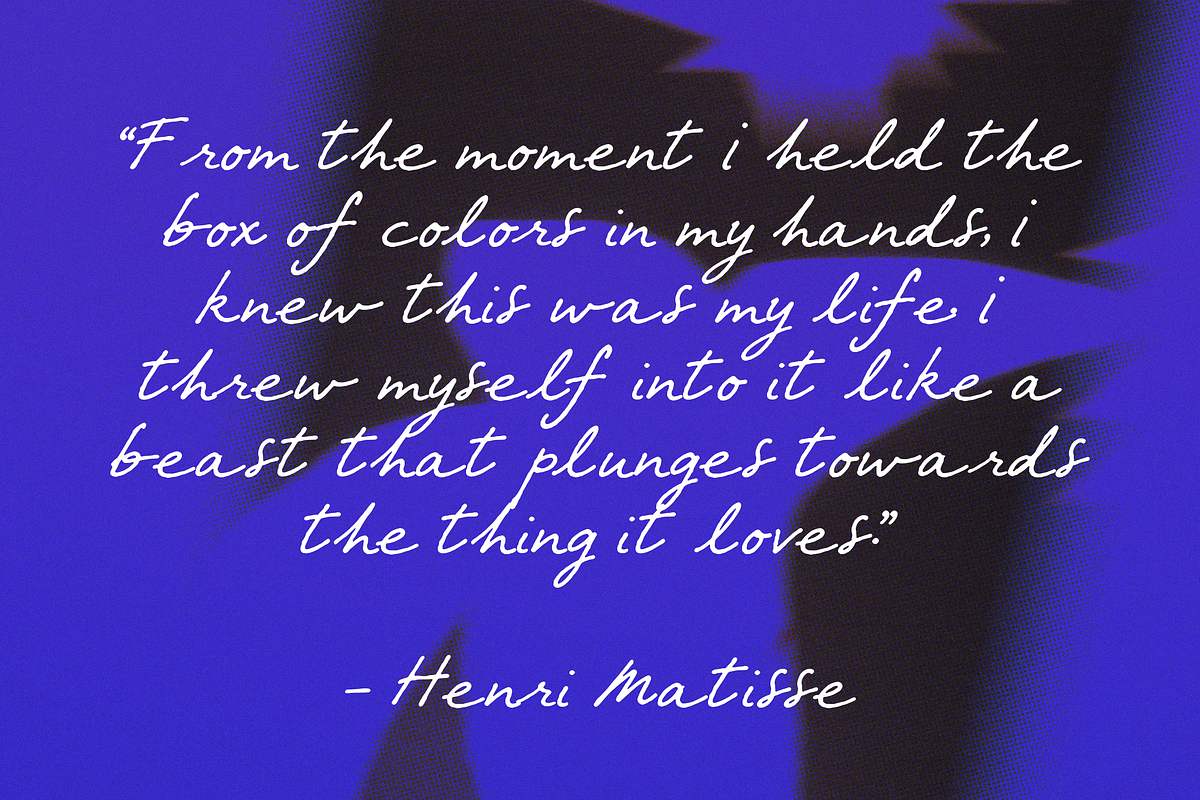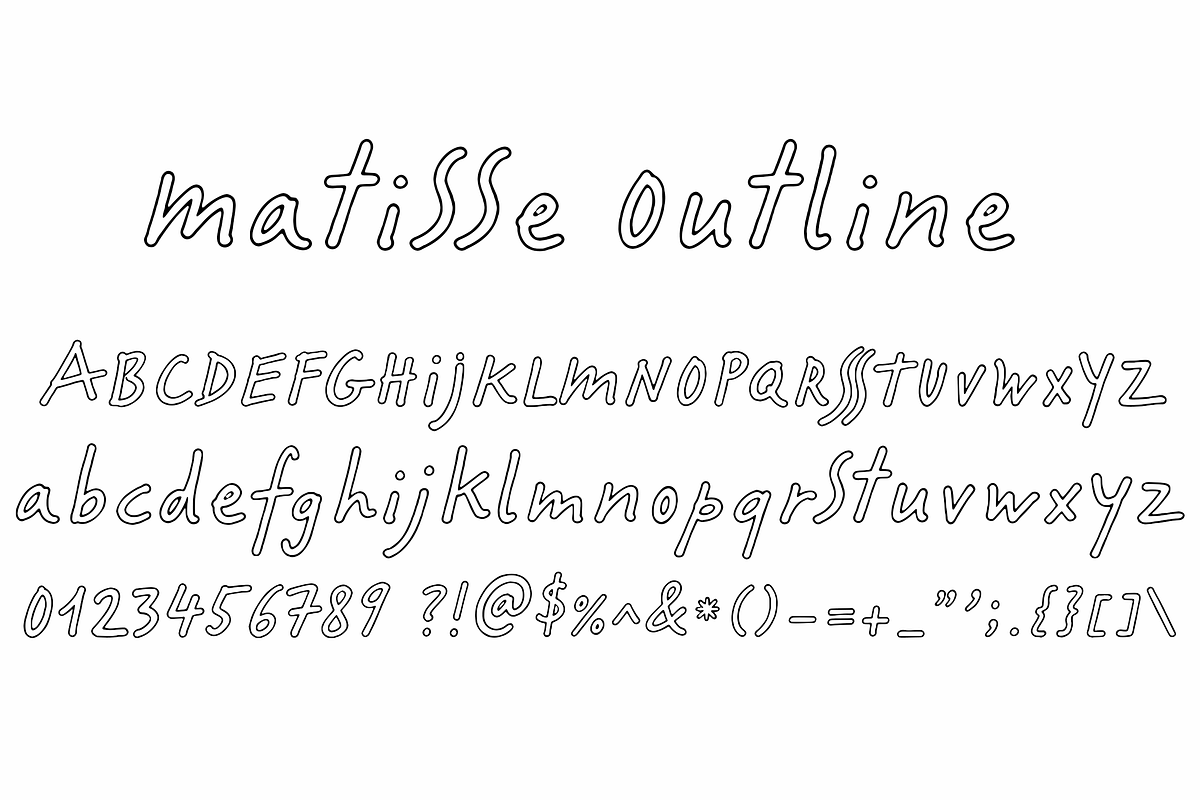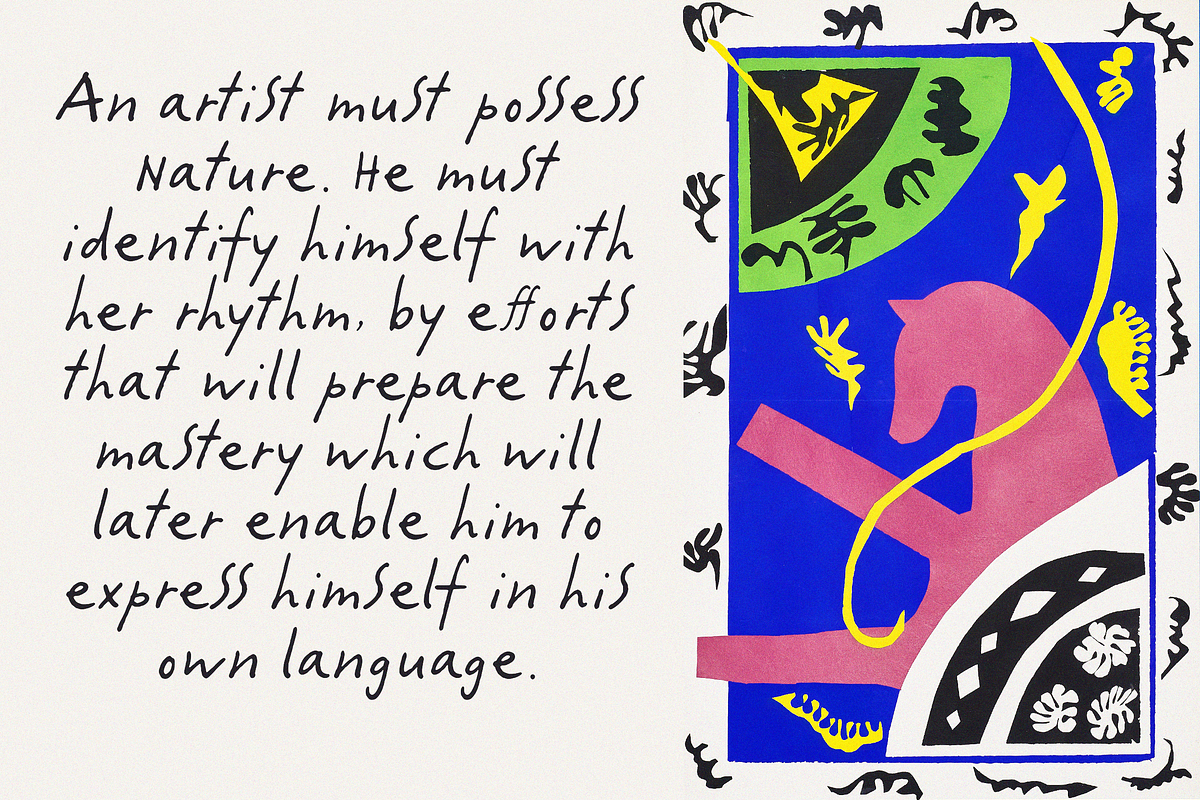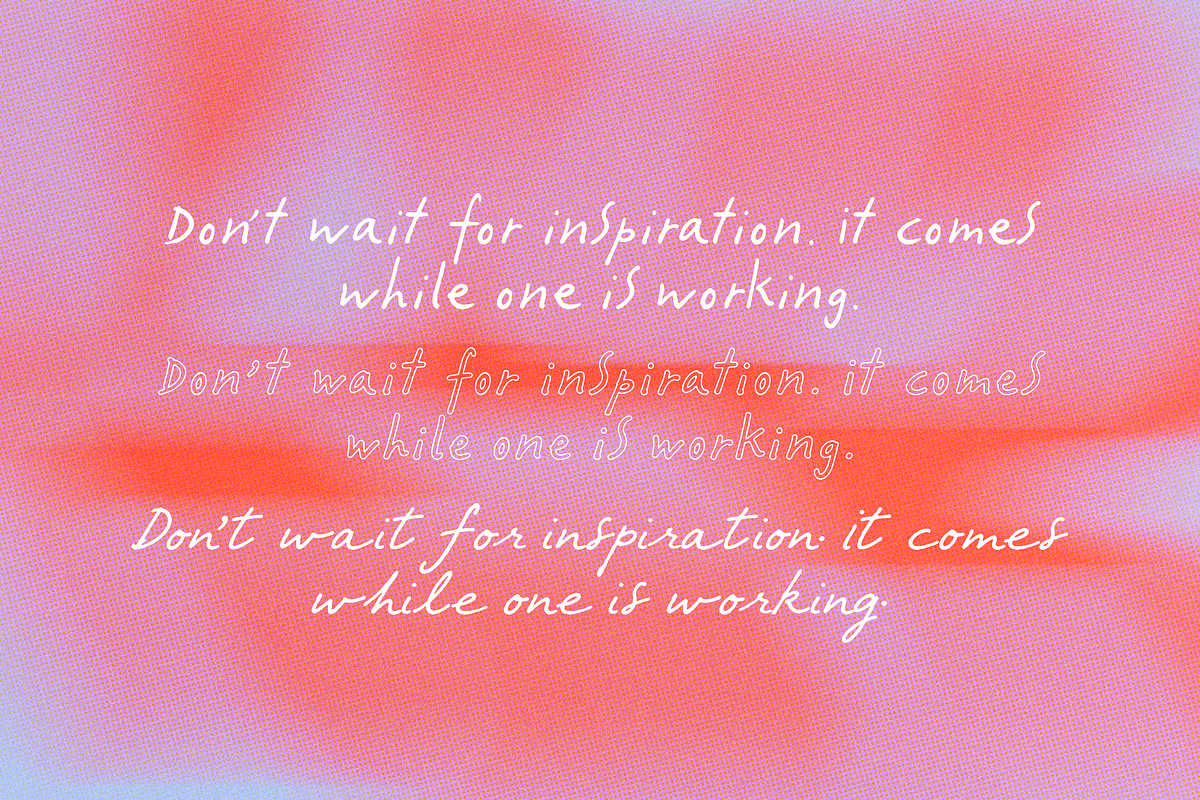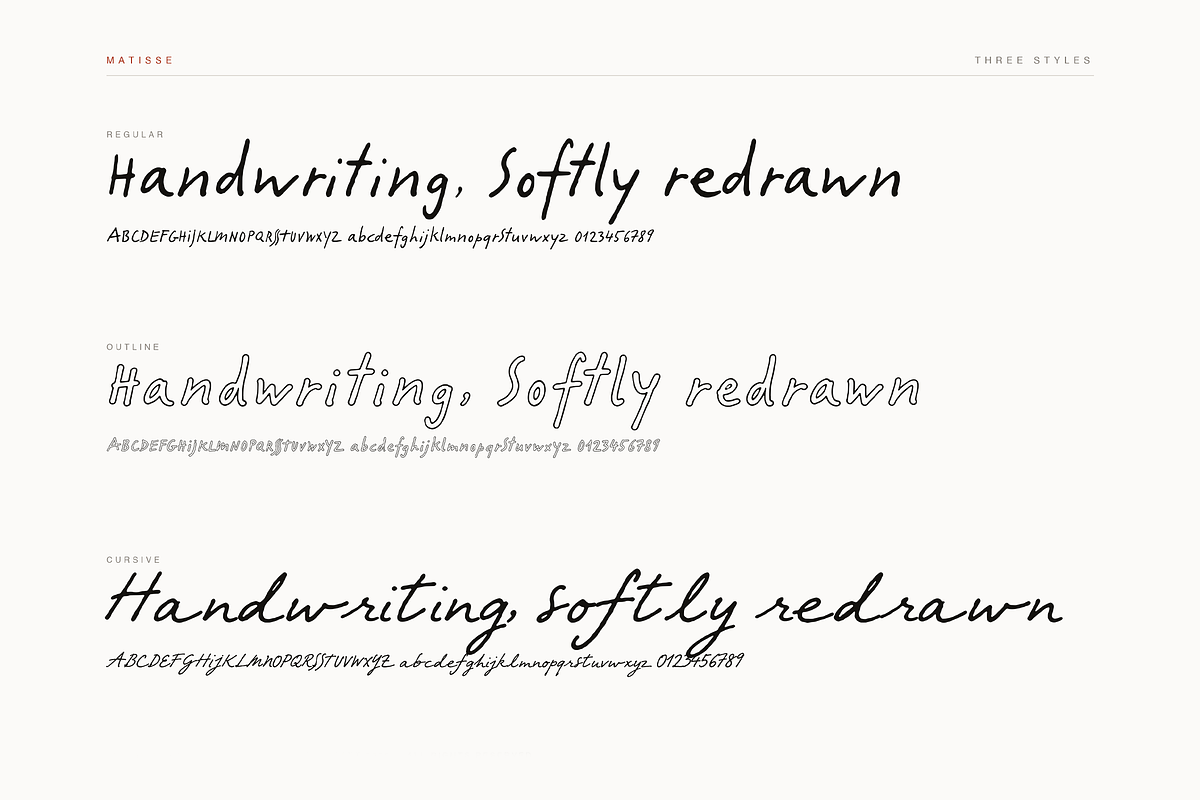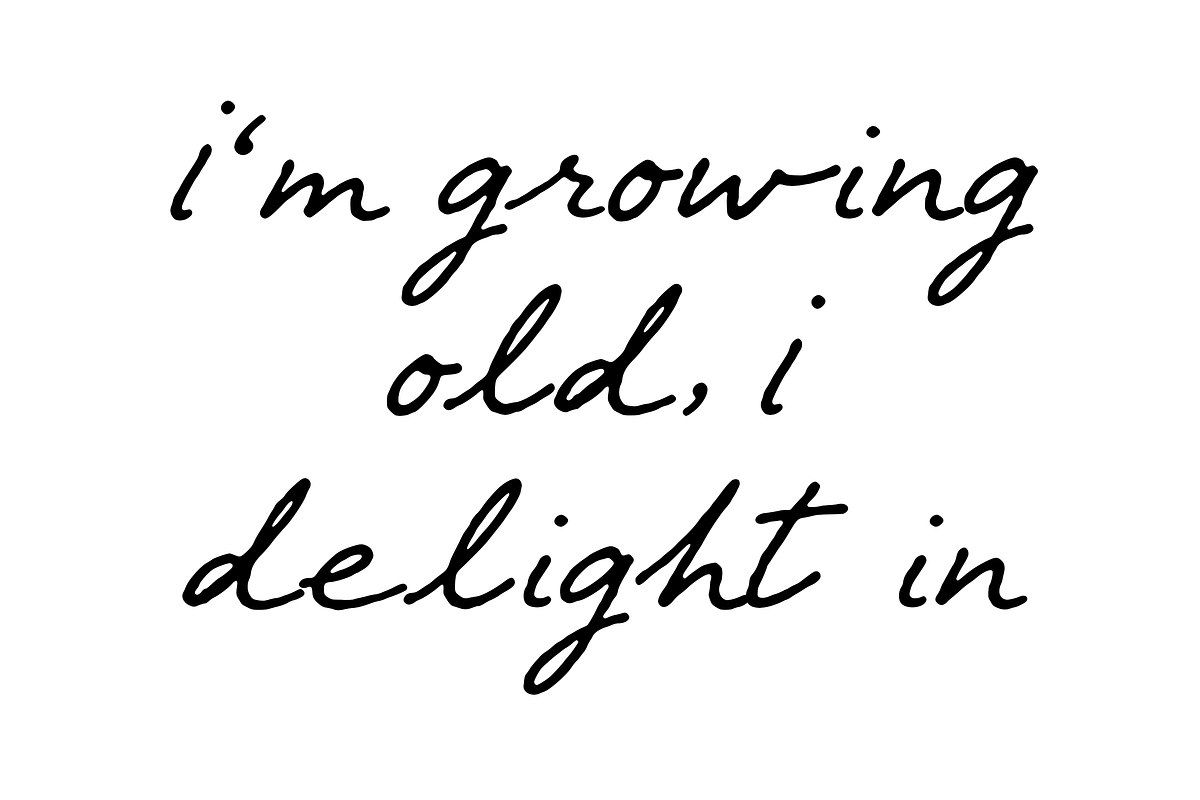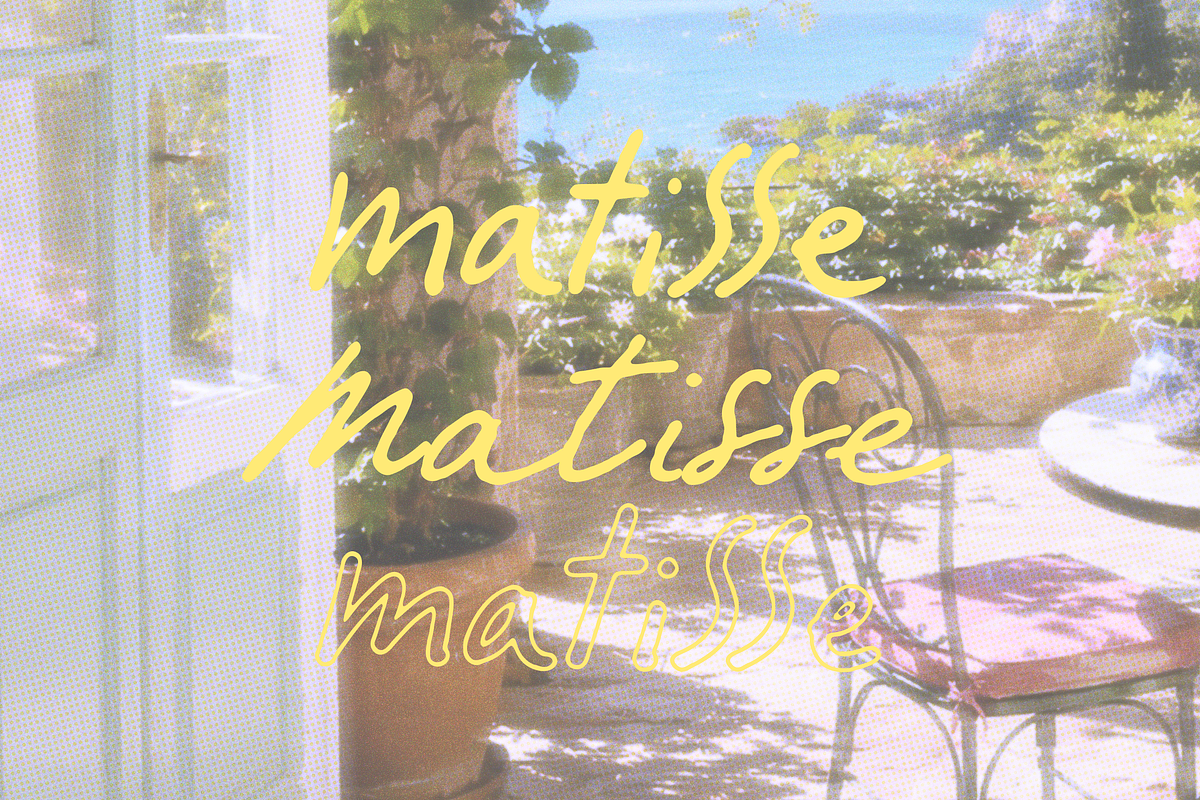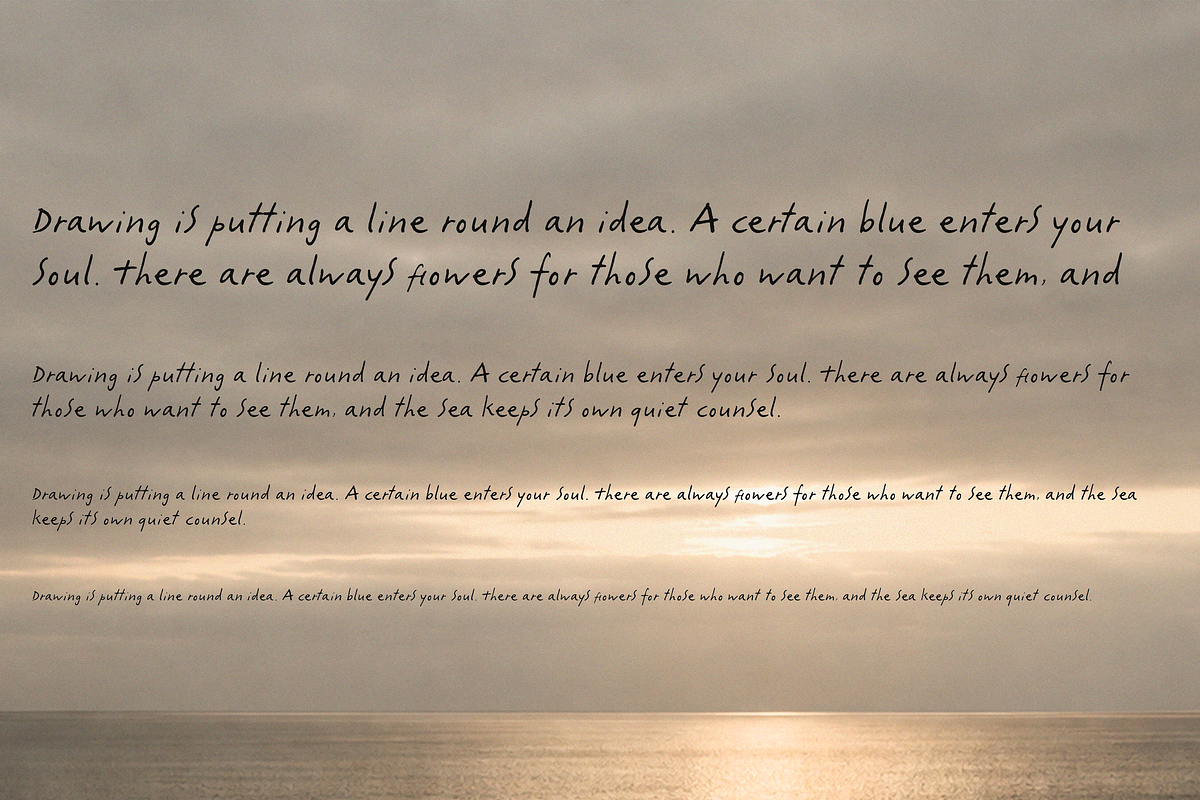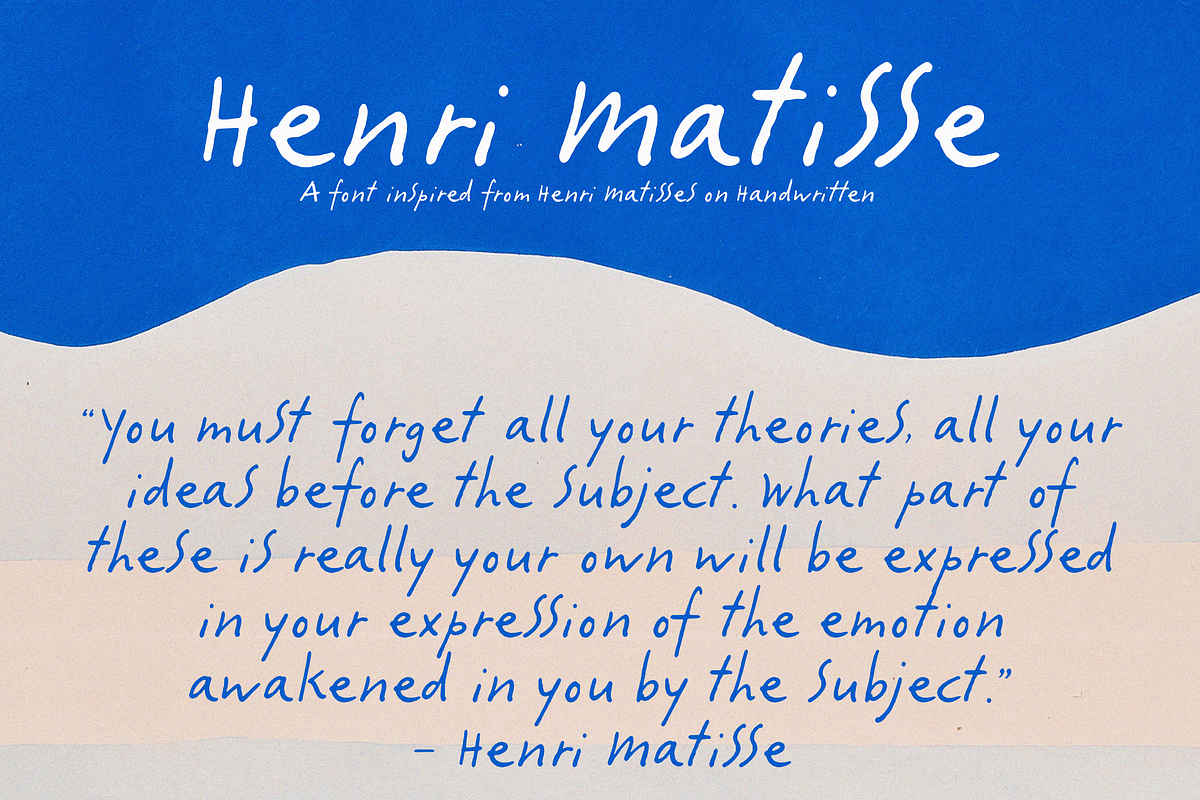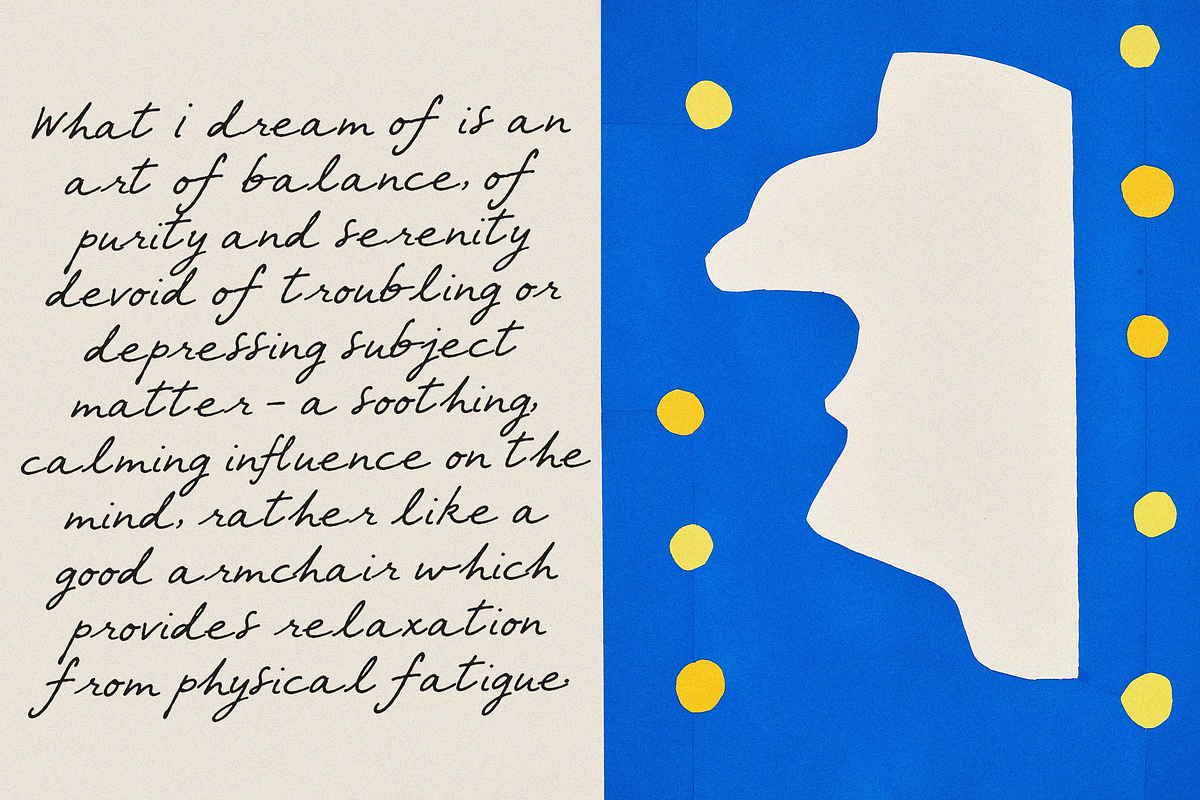
Matisse - Expressive Font
Matisse is an expressive handwritten font inspired by the loose, spontaneous character of an artist’s handwriting. Its imperfect lines, playful proportions, and naturally uneven rhythm give every word the feeling of something written quickly by hand rather than carefully typeset.
The font has a distinctly modernist, artistic personality, minimal, slightly quirky, and full of movement. Some letters are tall and narrow, others lean or curve unexpectedly, creating a beautifully unpolished quality that works especially well for designs that need to feel personal and creative.
The family explores the handwriting in different ways, including a bold handwritten style, a delicate outline version, and a flowing cursive variation, making it easy to create contrast while keeping the same visual language.
Perfect for art books, editorial layouts, posters, exhibition graphics, branding, packaging, invitations, stationery, fashion projects, album artwork, quotes, social media, and handmade-inspired designs.
The character set includes uppercase and lowercase letters, numbers, punctuation, and symbols, giving you plenty of freedom for both display typography and longer handwritten compositions.
Matisse is made for projects that don’t need everything to be perfectly straight or perfectly polished. It feels more like a mark left on paper **simple, human, expressive, and a little unexpected. **